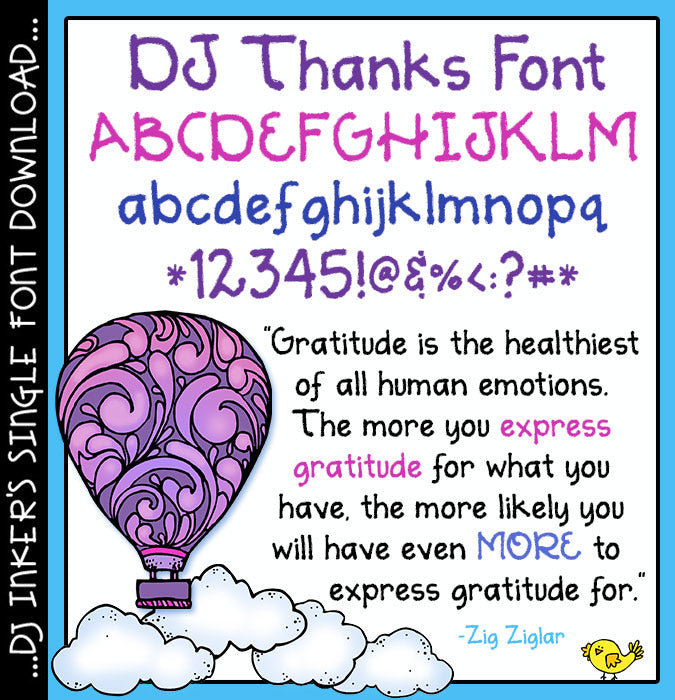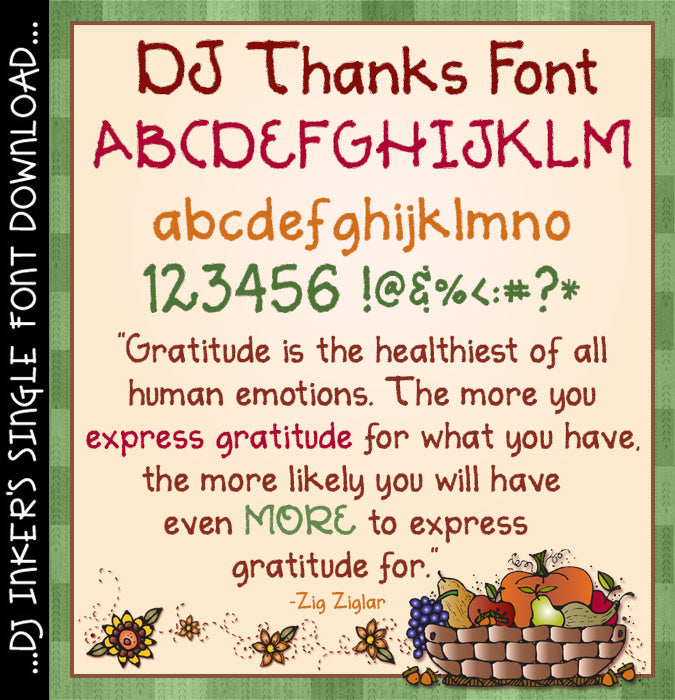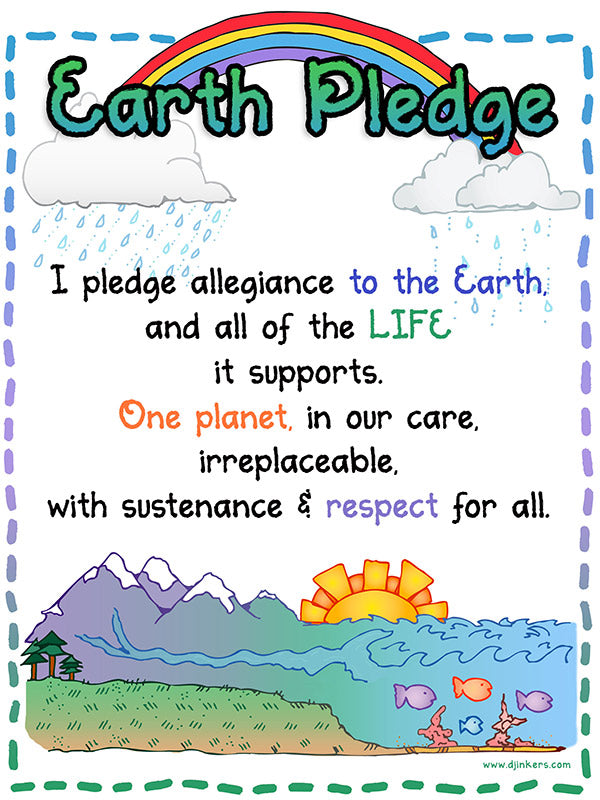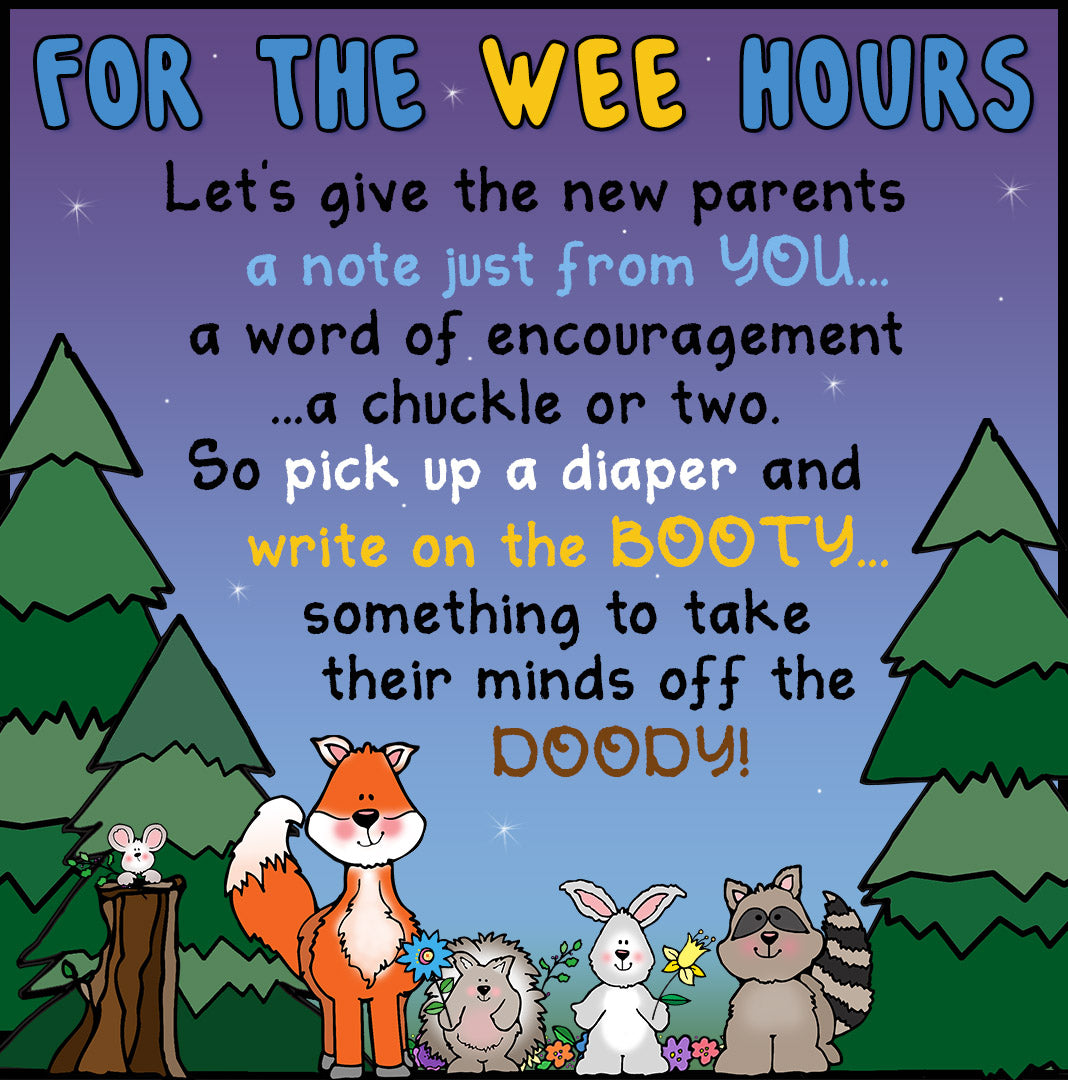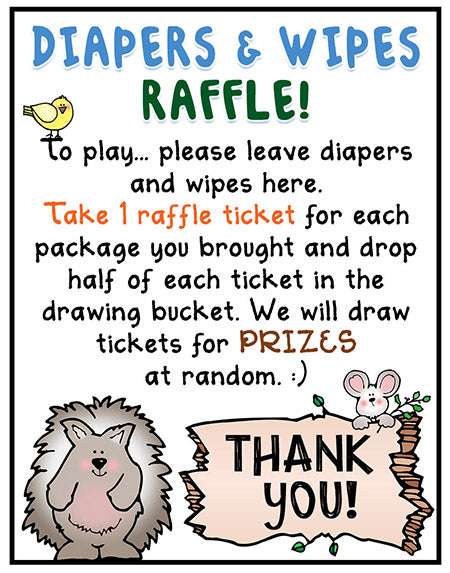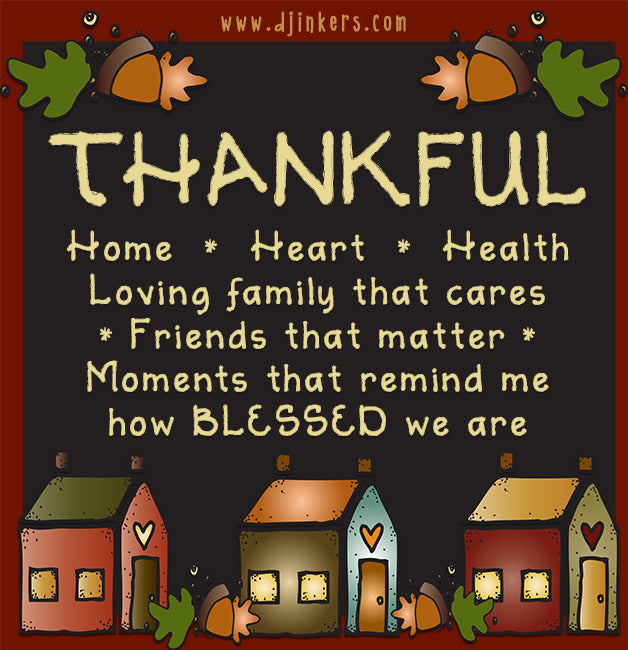
DJ Thanks is a soft, bold font for any occasion from DJ Inkers
DJ Thanks is the perfect blend of bold and graceful. Featuring a beautifully textured, chalky finish, this lovely font adds a warm, handcrafted touch to your projects. It’s ideal for thank-you notes, family newsletters, memory scrapbooks, Thanksgiving crafts, and seasonal DIYs.